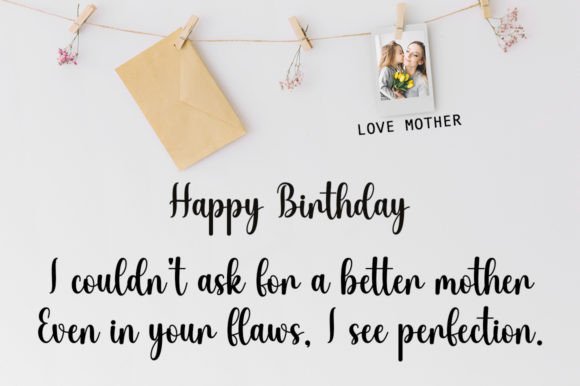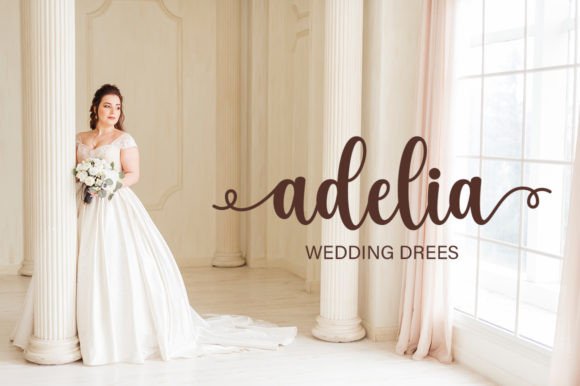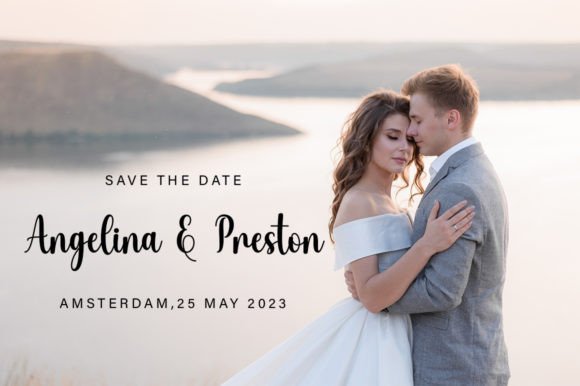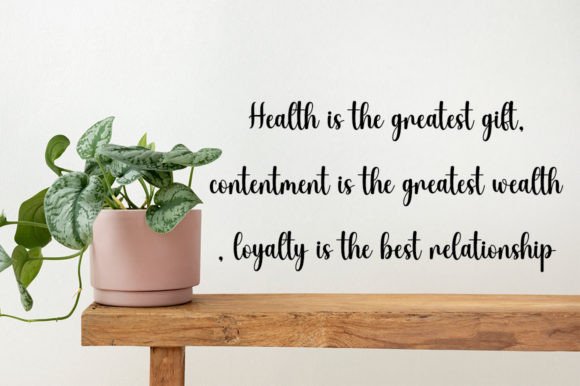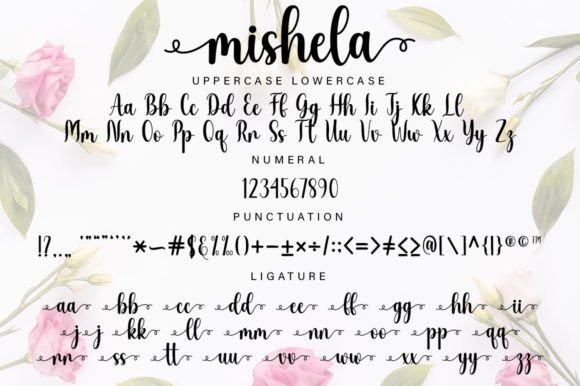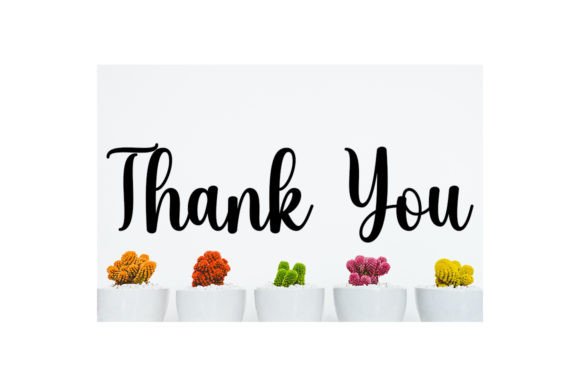
Introduction to Mishela Font
Have you ever stared at a blank page, trying to find the perfect font to capture the essence of your creative project? For designers, finding the right font can be a daunting task, especially when it comes to creating a unique and personalized touch. But what if I told you that there’s a font that can add a touch of elegance and sophistication to any design?
Enter Mishela Font, a stunning handwritten font that’s perfect for wall displays, wedding invitations, social media posts, and so much more. With its beautiful and intricate design, Mishela Font is a valuable resource for designers who want to add a personal touch to their projects.
Whether you’re working on a high-quality design project or simply need a unique font for a social media post, Mishela Font is a free download that’s sure to impress. With a transparent background and a wide range of design possibilities, this font is a must-have for any creative project.
Key Features of Mishela Font
- High-quality font with a unique, creative design suitable for various projects, including posters, logos, and branding materials.
- Features a transparent background, allowing designers to easily layer the font over different backgrounds and images.
- Designed with a high level of detail and precision, resulting in a crisp and clear display at resolutions up to 300 DPI.
- Perfect for use in digital design, including web design, social media graphics, and mobile app interfaces.
- Available in a range of sizes, from small to large, making it suitable for use in various contexts, from body text to headings and titles.
Honest Review: Mishela Font
As a designer, I’m always on the lookout for high-quality design resources to enhance my creative projects. Recently, I had the chance to try out the Mishela Font, and I must say, it’s been a game-changer.
What works well: ✨ The Mishela Font is incredibly versatile, making it perfect for a wide range of design applications. From headings to body text, this font is sure to elevate your design. The font’s clean and modern aesthetic also lends itself well to digital designs, such as social media graphics and website headers.
- Easy to use and customize
However, there are a few limitations: ⚠️ The font may not be suitable for certain design styles or themes, and the character set may not be as extensive as some other fonts. But overall, the Mishela Font is a fantastic addition to any designer’s toolkit.
Overall impression: I’m thoroughly impressed with the Mishela Font, and I would highly recommend it to any designer looking for a high-quality, versatile font for their creative projects.
Common Use Cases for Mishela Font
Mishela Font is suitable for a wide range of creative projects, including brochures, business cards, and social media graphics. Its high-quality design makes it an ideal choice for designers looking for a professional and modern font.